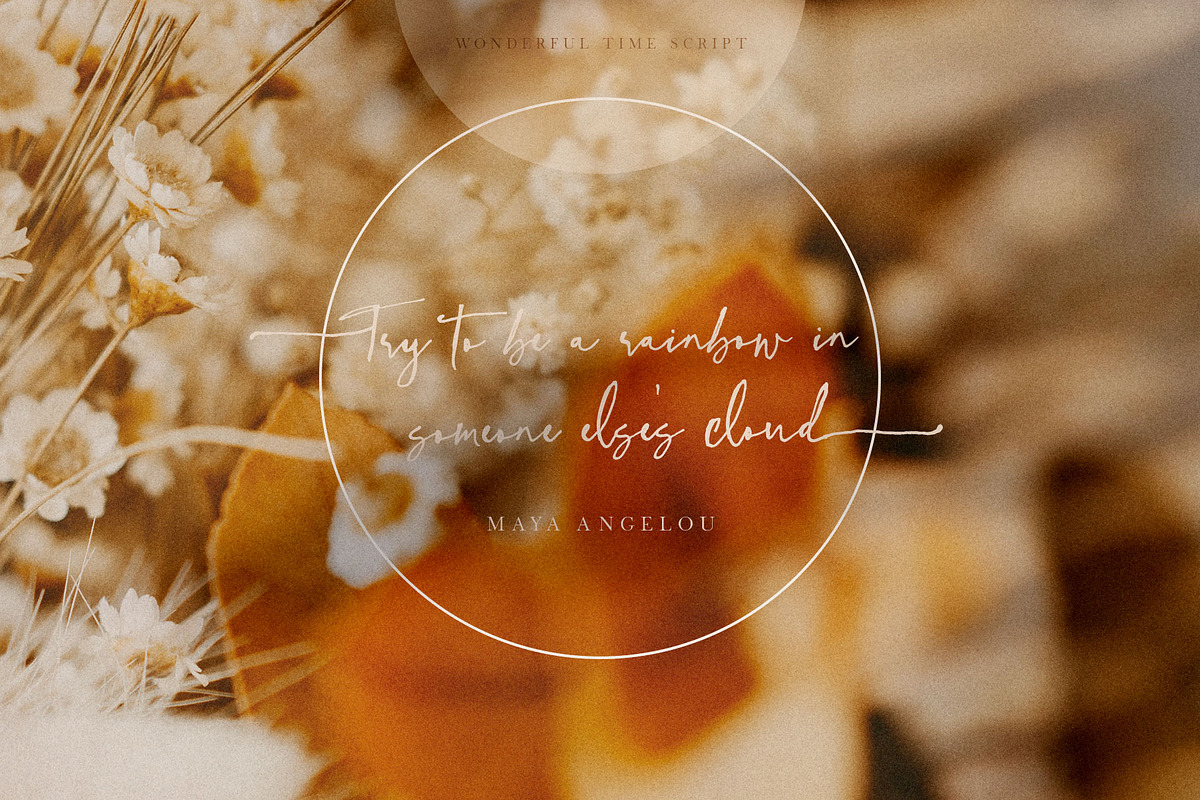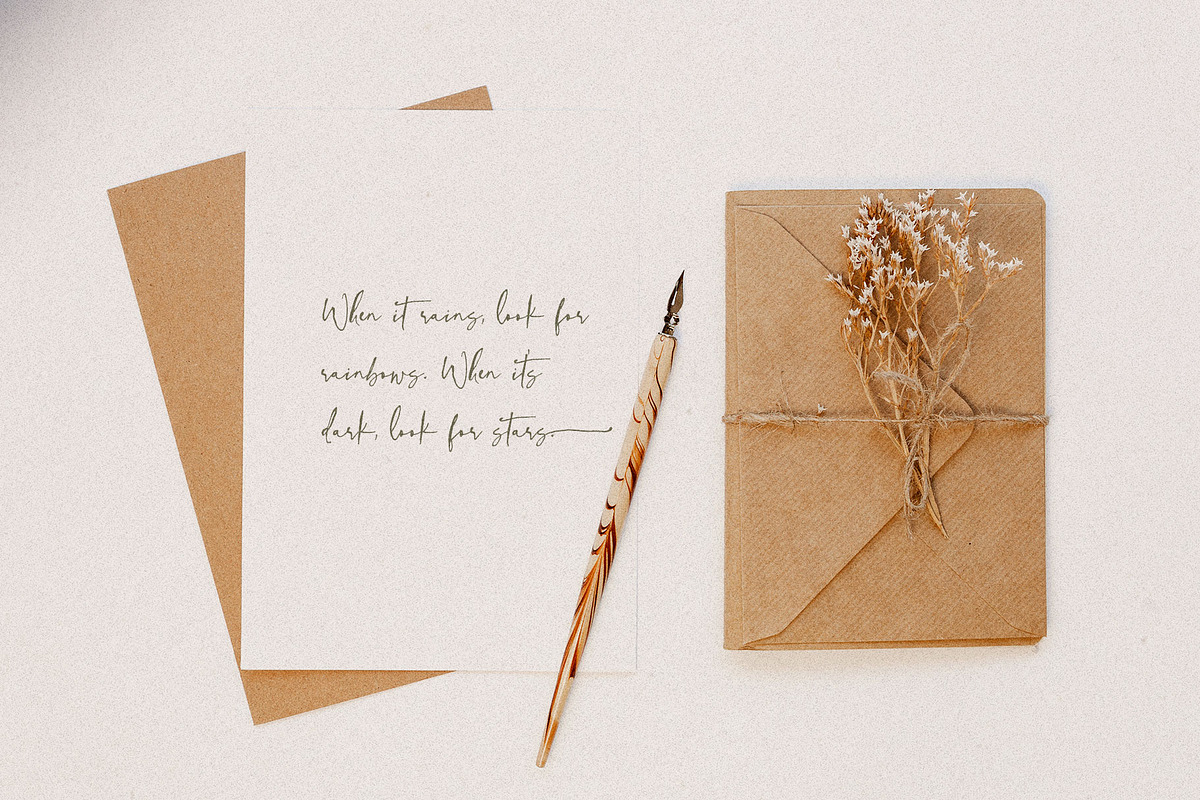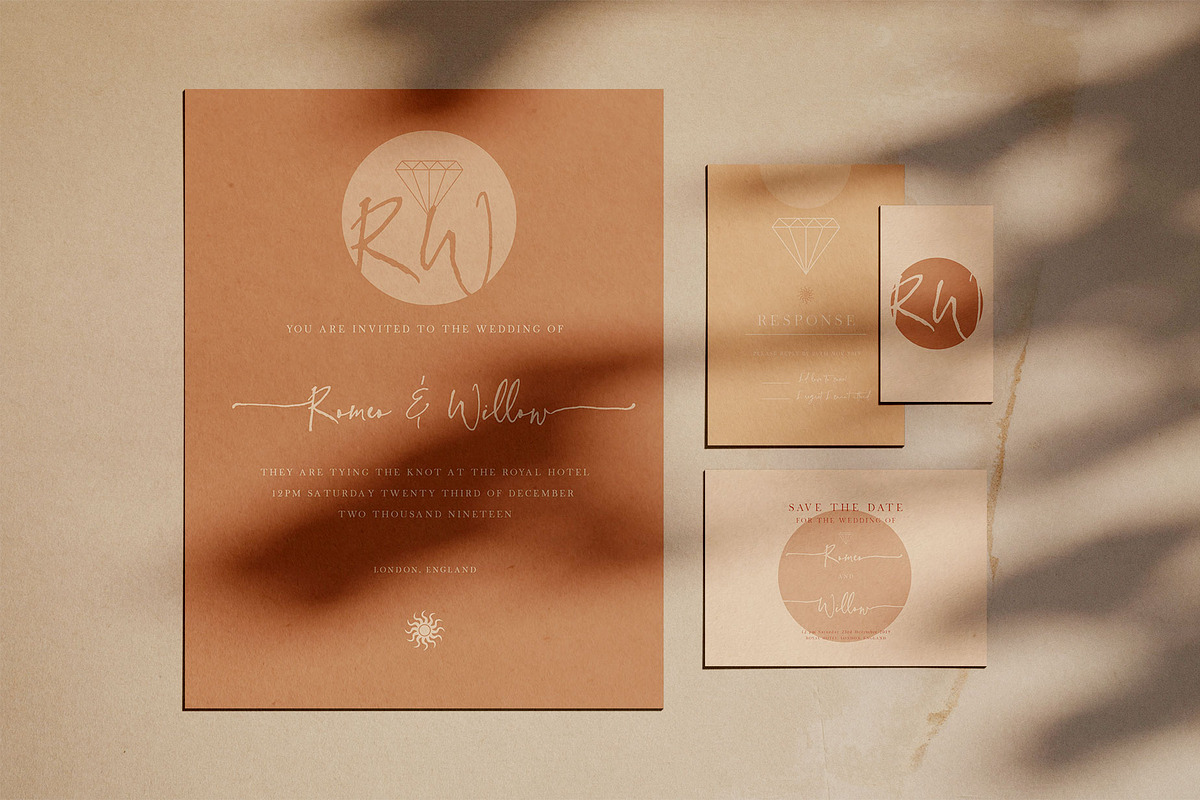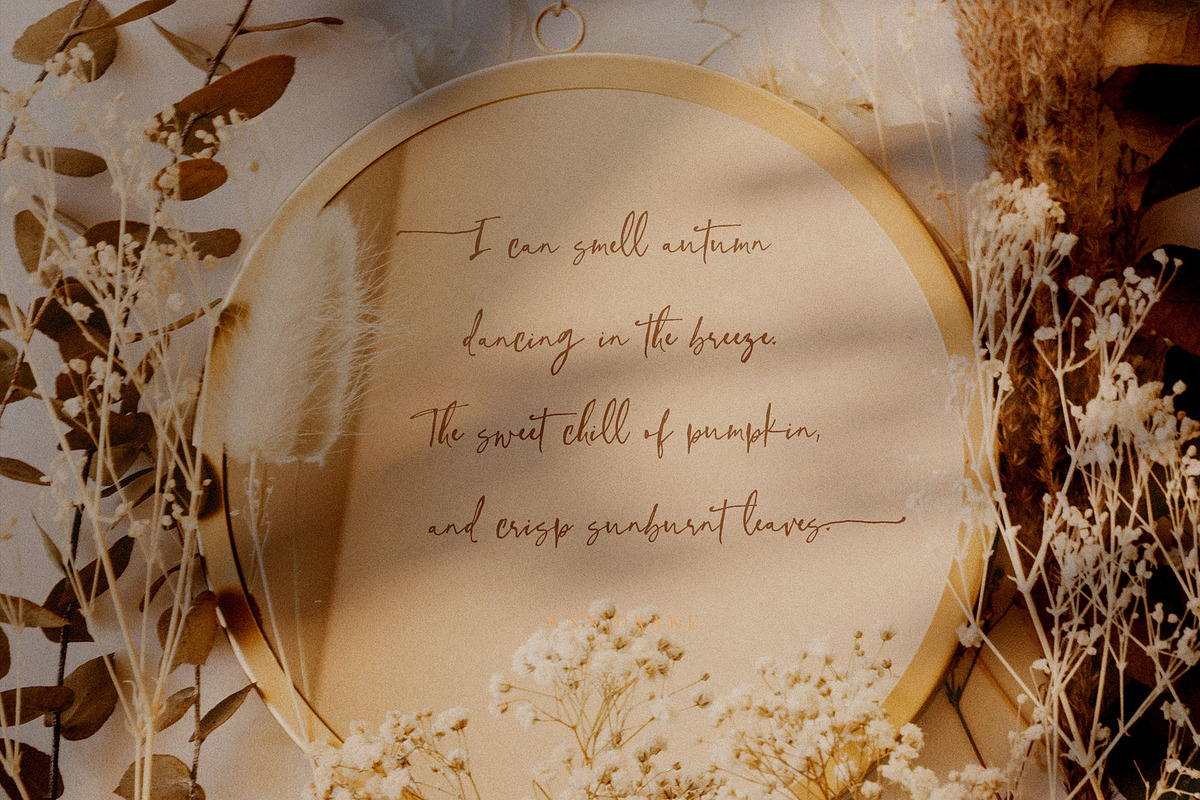
Wonderful Time Script Font
Introducing a new hand written script font - Wonderful Time
This is a super rustic imperfect hand written font, perfect for quotes, invites, weddings, posters, signs, branding, logos, signage, and much more!
It has 2 extra font files for the swashes - including beginning and ending swashes for lowercase letters, and beginning swashes for uppercase letters!